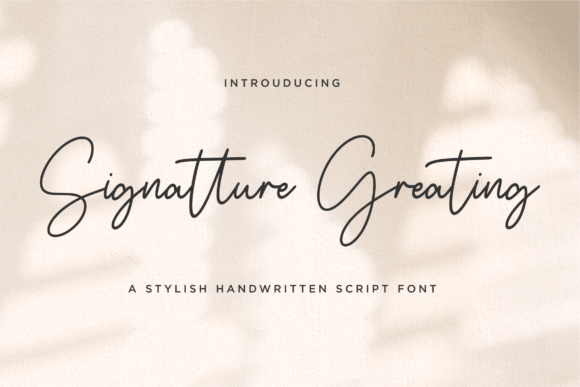
Introducing Signatture Greating, a beautiful script font that will add a touch of joy and romance to your designs. Its gentle curves and flowing lines are perfect for branding, logos, wedding invitations, greeting cards, fashion, lookbooks, and marketing promotions.
Whether you're a professional designer or a creative hobbyist, Signatture Greating is the perfect font to add a personal touch to your projects. It's easy to use and versatile, making it perfect for a wide range of applications.
With its elegant yet casual style, Signatture Greating is the perfect choice for adding a touch of sophistication to your designs. Its delicate lines and curves will add a touch of whimsy and charm to any project.